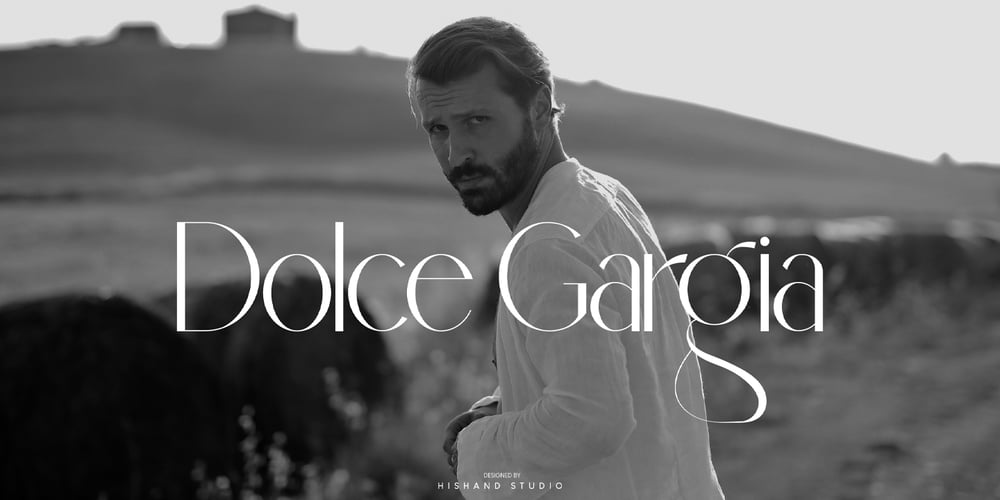
Dolce Gargia
Dolce Gargia font
Dolce Gargia Font Family was designed by Putu Dody Permana and published by Hishand Studio. Dolce Gargia contains 4 styles and family package options. Introducing Dolce Gargia, a classic modern sans serif with aesthetic look. Perfect for who needing a touch of elegancy, stylish, classy, beautiful thin, and modernity for their design.Complete with ligatures alternates regular italic hollow icon kerning multilingual support